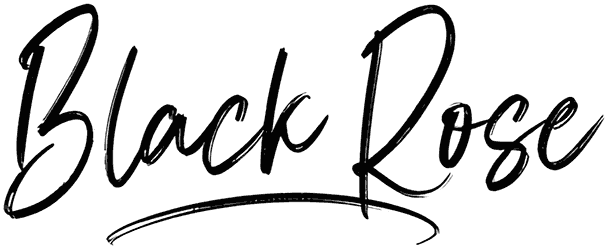
Black Rose Font
Just like a messy brush font with inky lettering, look at its natural essence that makes a significant impression. It doesn’t matter if your project is a title for business cards or a quote for greeting cards; in all cases, you can’t see anything more amazing than Black Rose.